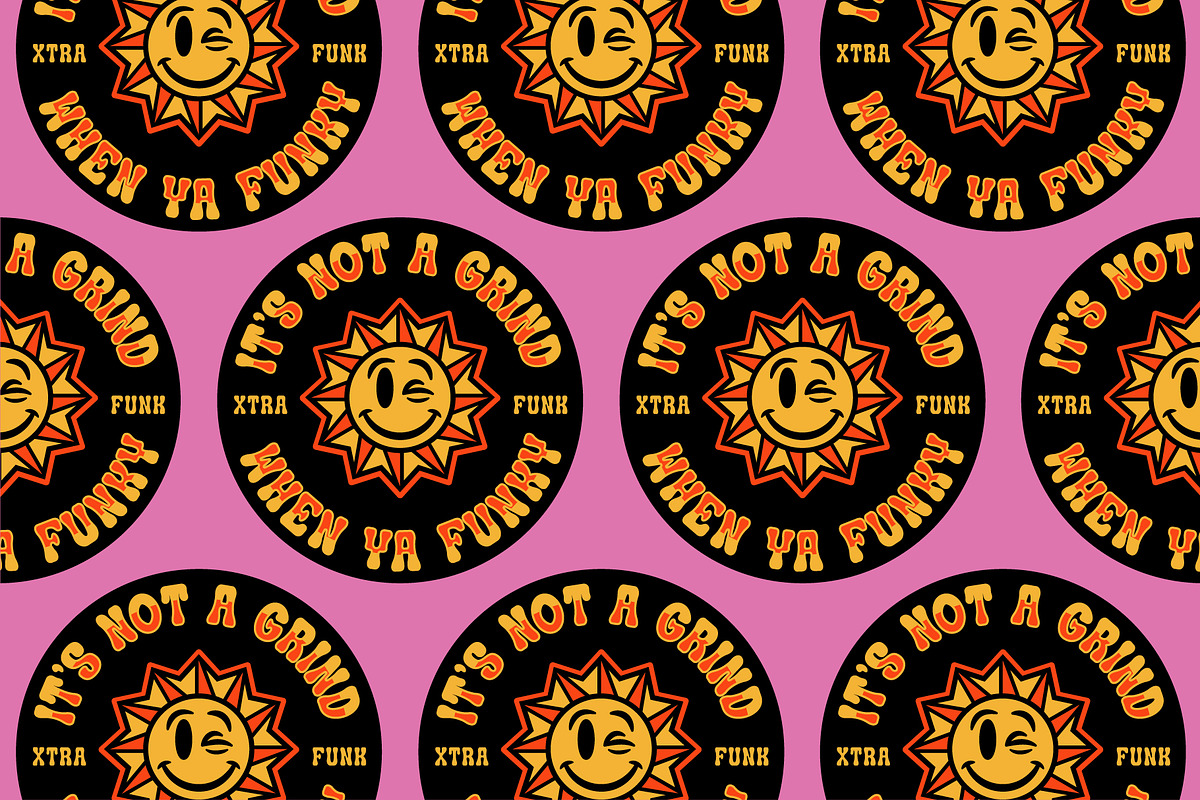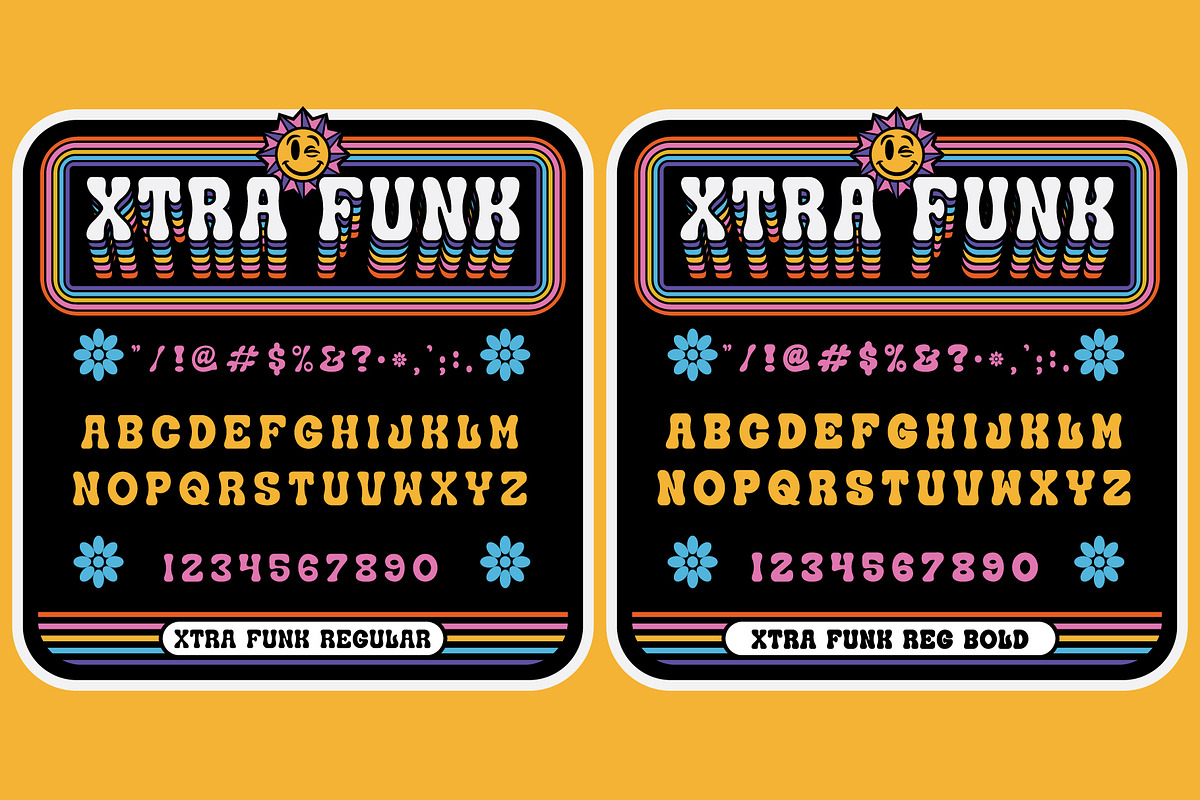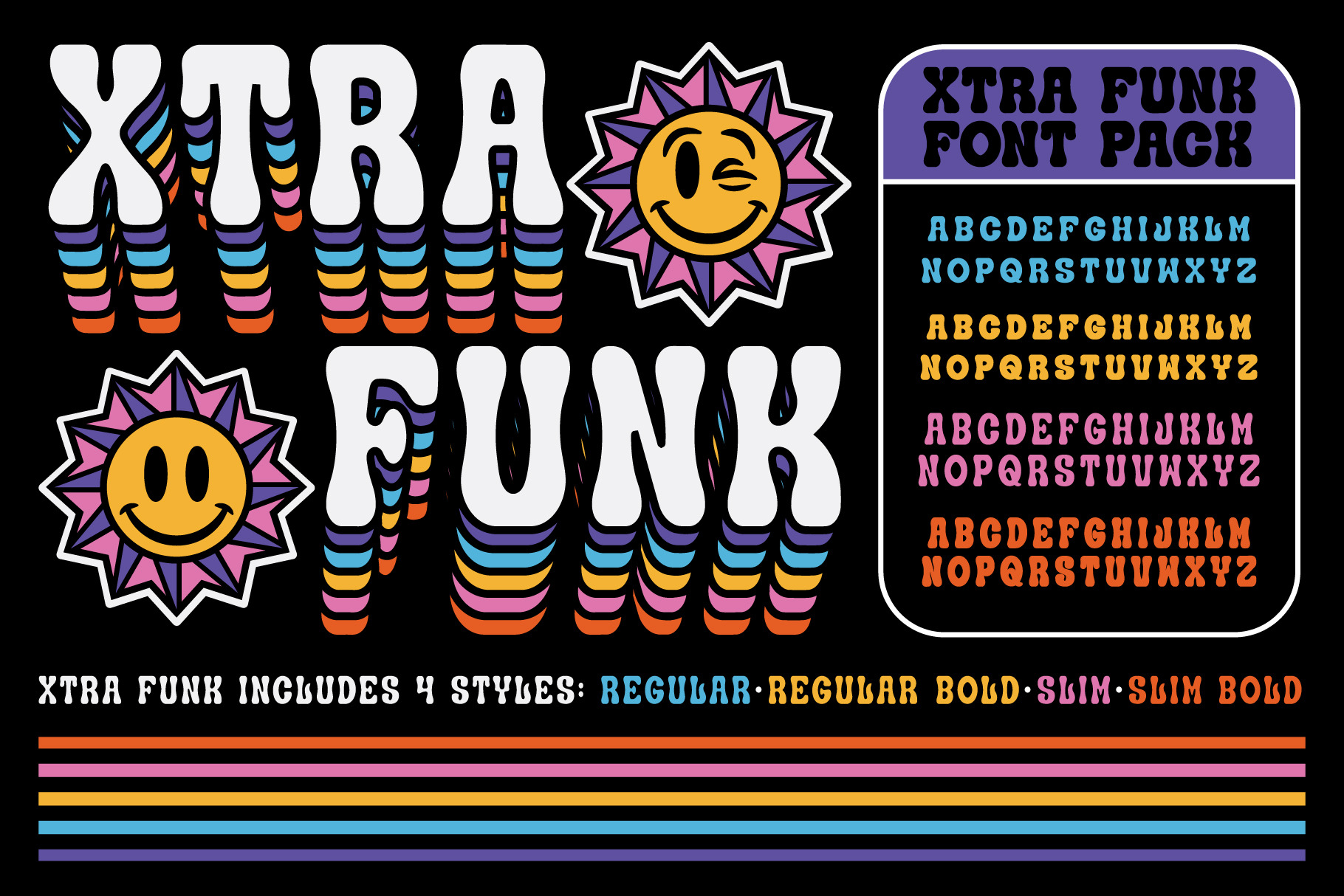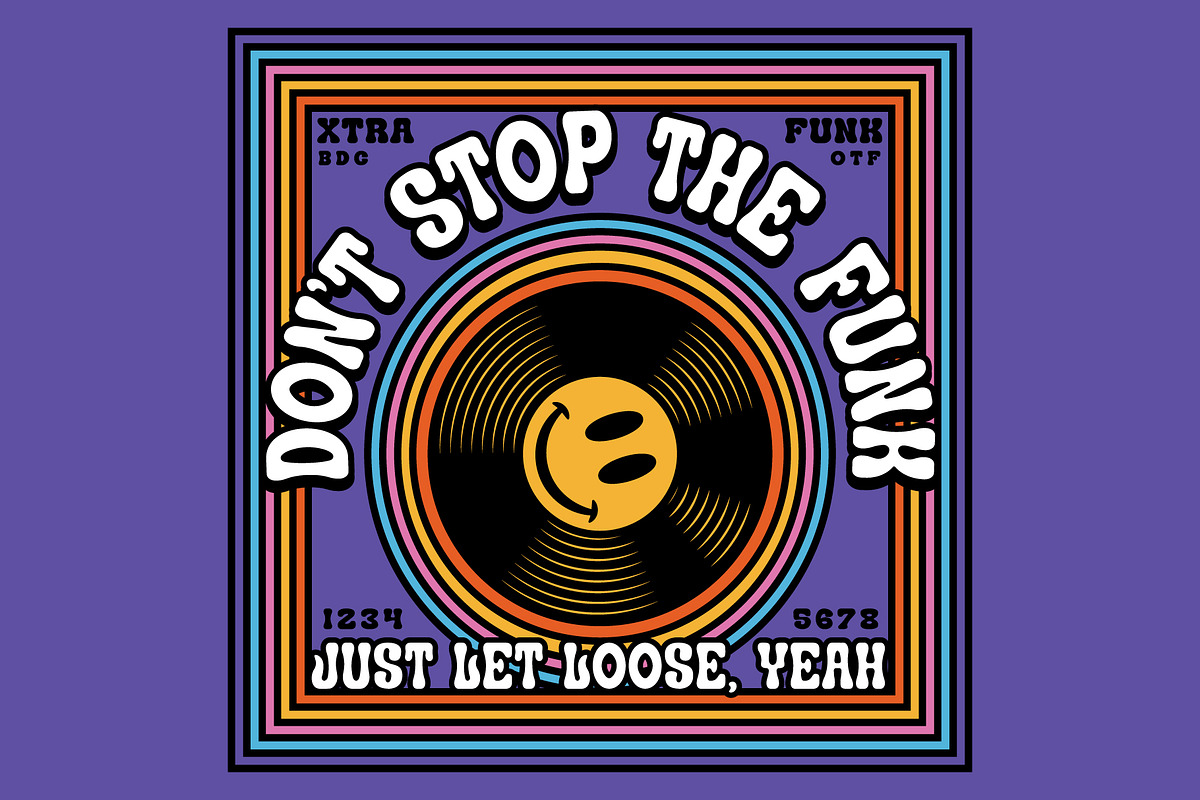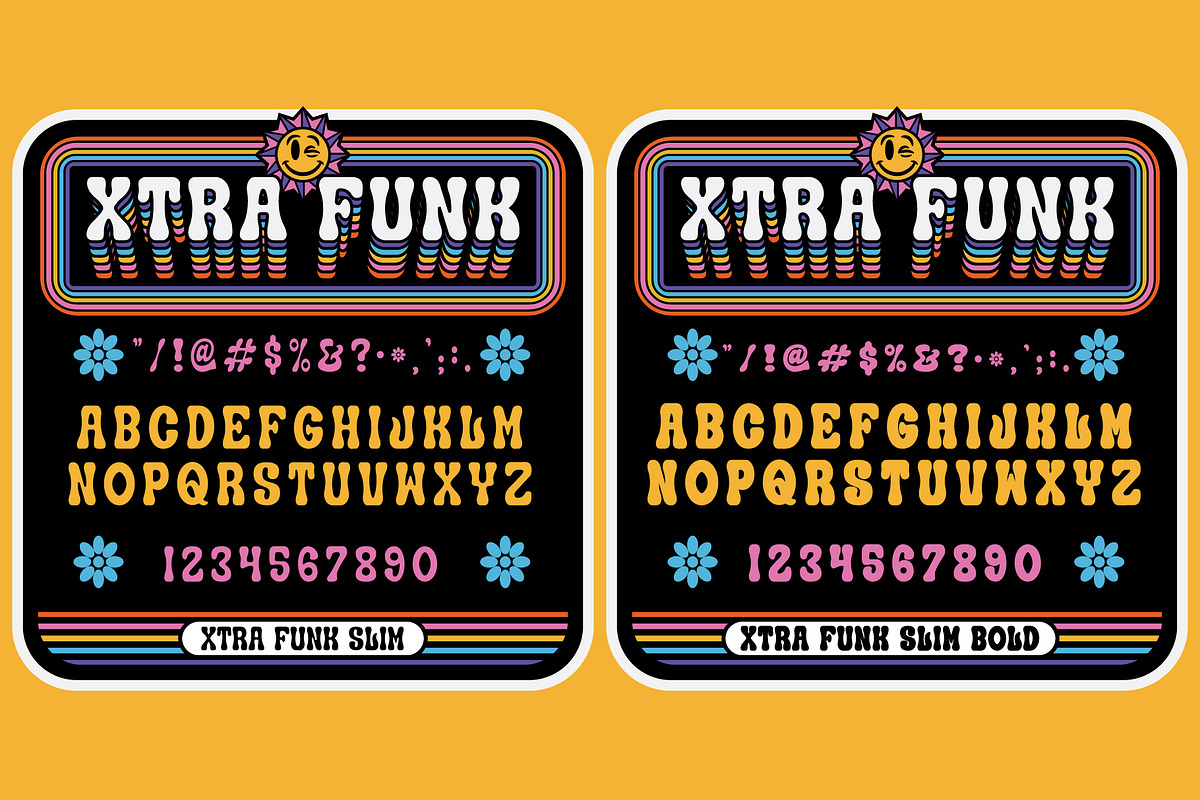
Xtra Funk Font Family
It’s not a grind when ya funky! Bring in that XTRA funk to your designs with our new XTRA FUNK font family. Comes in 4 weights Slim, Slim Bold, Regular and Reg Bold. All letters, numbers, punctuation and a funky little flower glyph are accounted for so you can bring back the funk with a lil’ xtra. Funk is a feeling, funk is a groove.